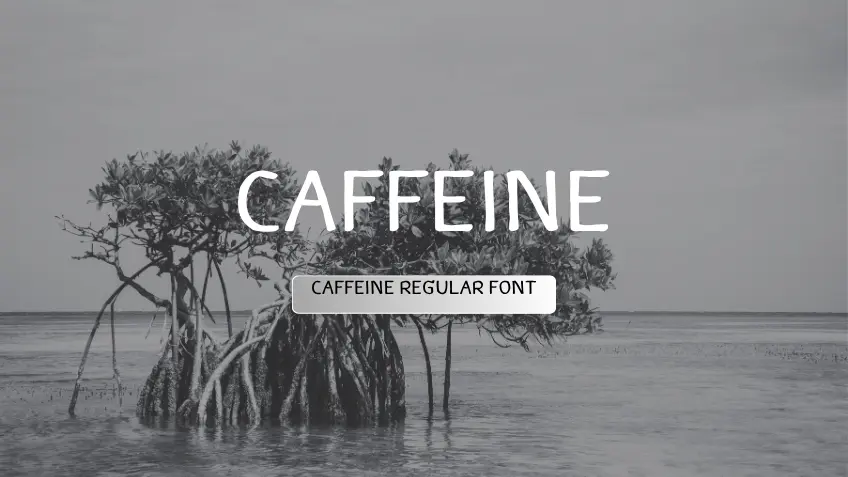
The font Caffeine Regular, designed by Thomas David Gjertsen, falls under the Monospaced, Sans Serif category & Caffeine font family. Its smooth, flowing letterforms make it a versatile choice for projects that require both elegance and readability. Caffeine is particularly well-suited for Programming and Coding, Tabular Data and Spreadsheets, Technical and Scientific Documentation and Minimalist Design. With its balance of simplicity and decorative appeal, this font brings a polished touch to both personal and professional designs.